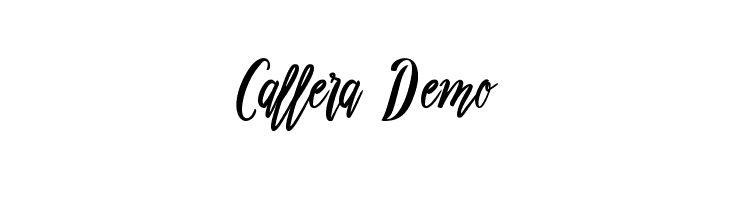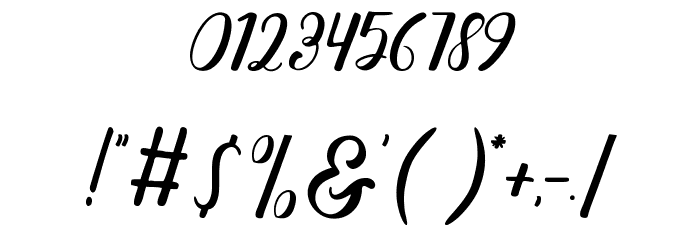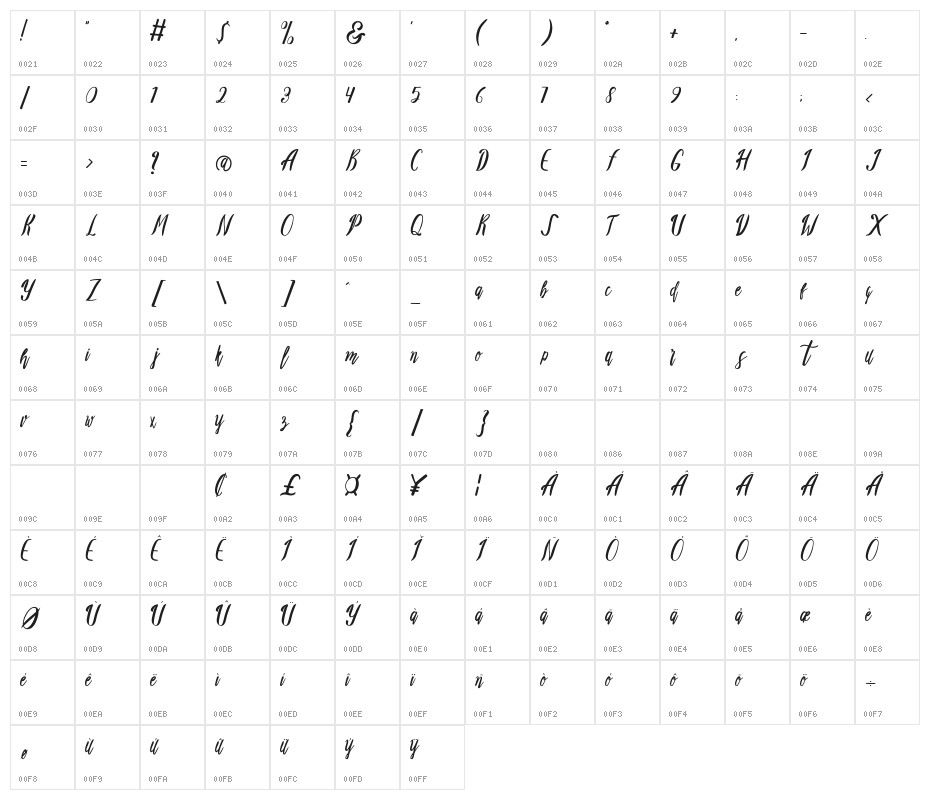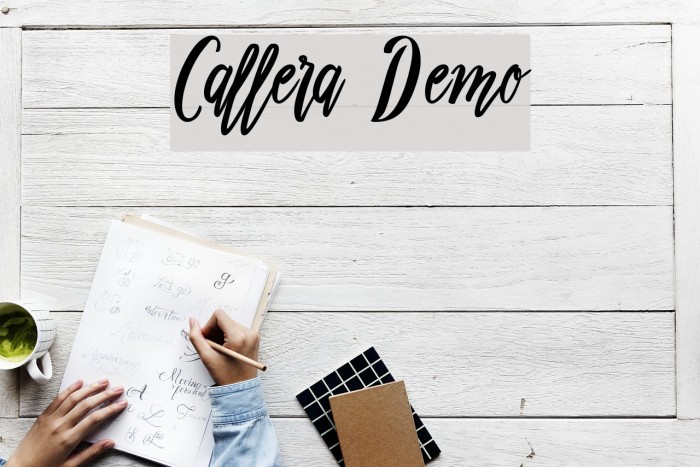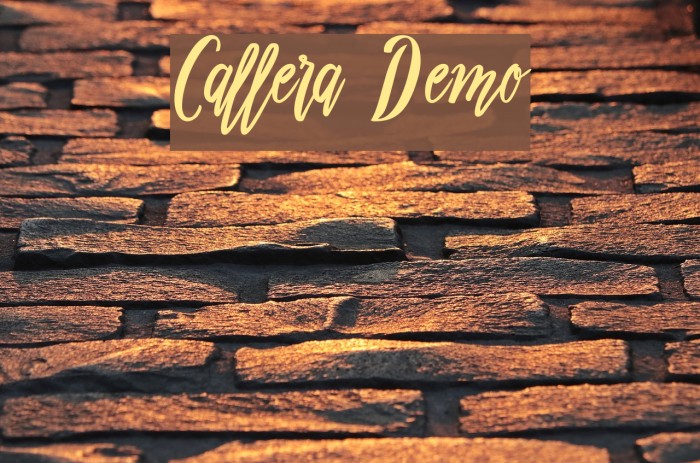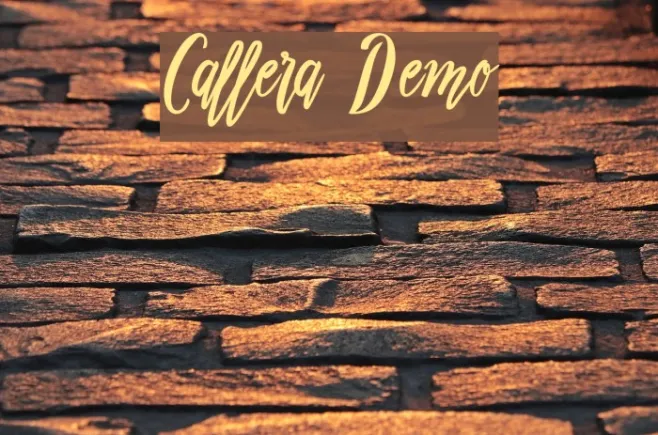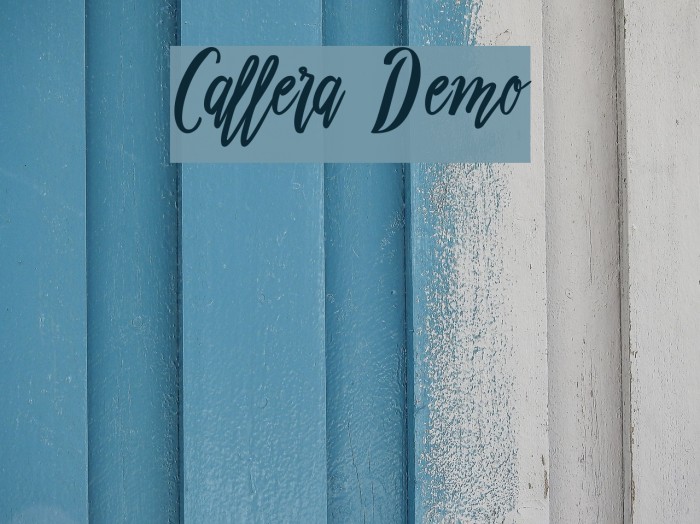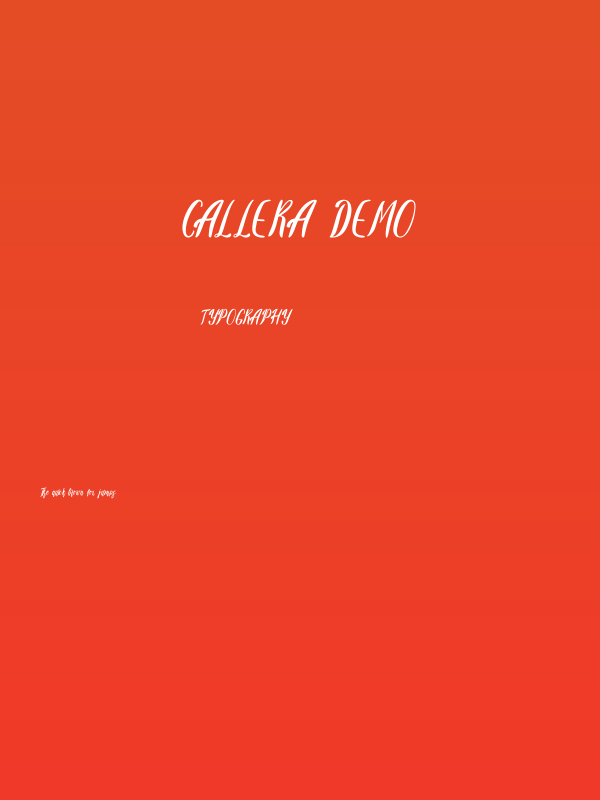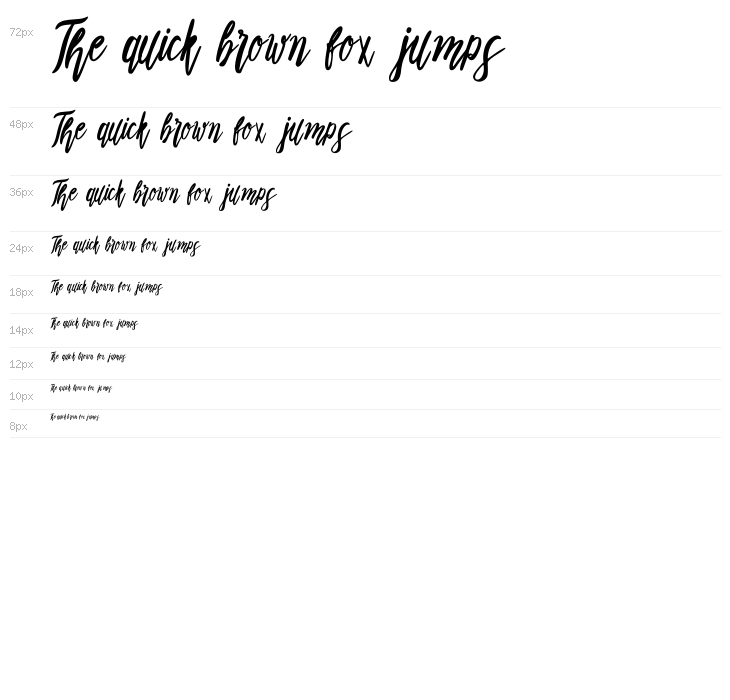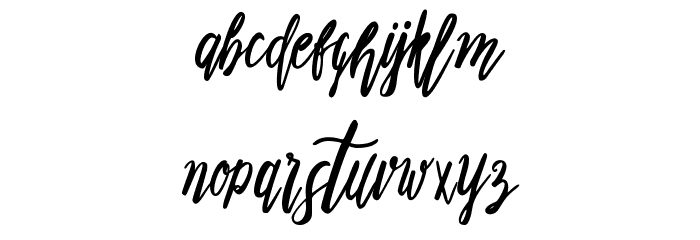
Callera Demo Font
Callera Demo Description
This font exudes a dynamic and elegant script style, characterized by its fluid, cursive strokes that convey a sense of movement and grace. The uppercase letters are bold and slightly slanted, with a consistent stroke width that adds to their legibility. The lowercase letters are more intricate, with loops and flourishes that enhance their decorative appeal. Numbers and special characters maintain the same flowing style, ensuring a cohesive look across all text. This font is ideal for projects that require a touch of sophistication and flair, such as invitations, branding, and editorial design.
| Proposed Projects | Ideal for invitations, branding, editorial design, and any project needing a sophisticated touch. |